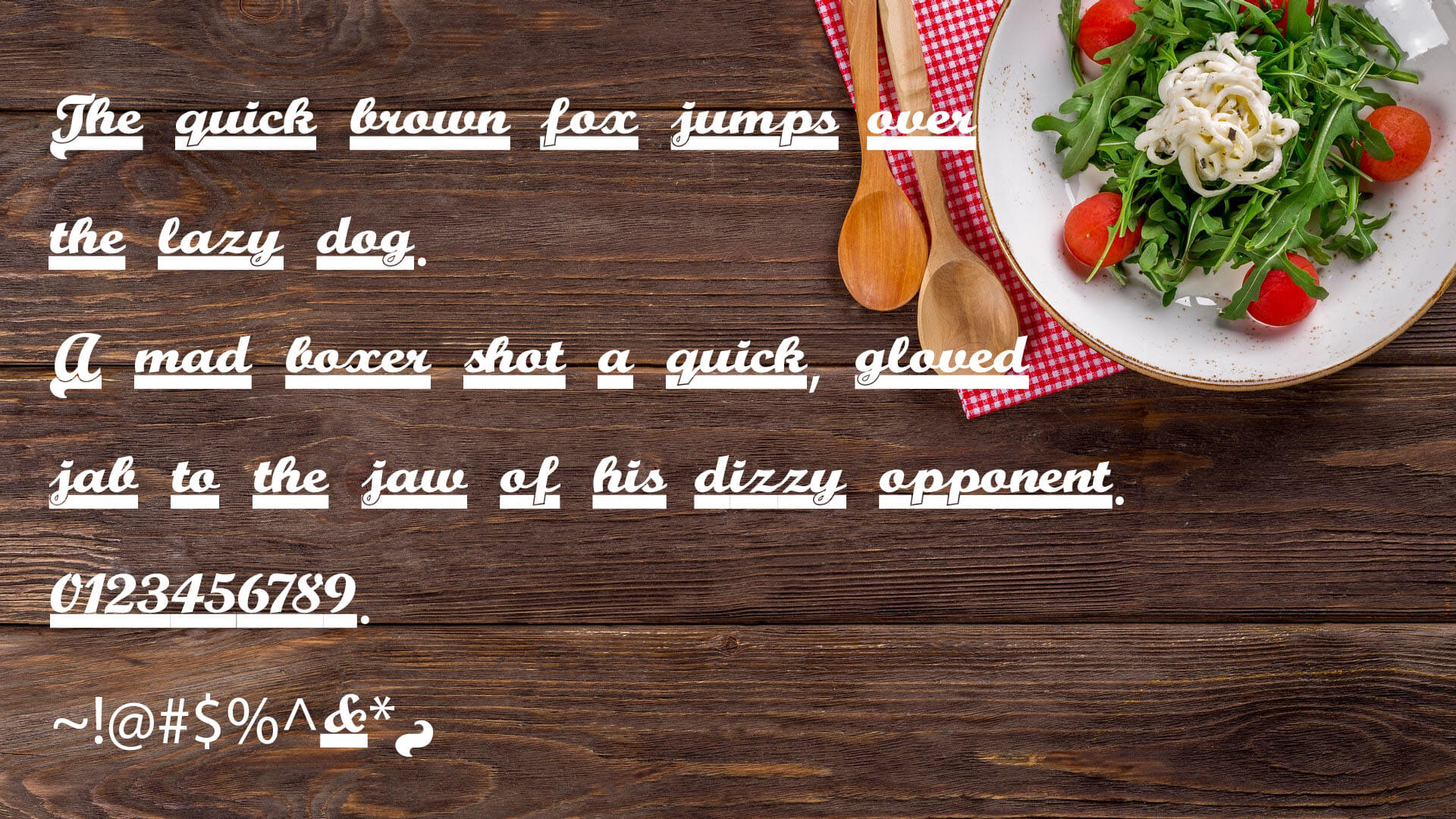
Let’s start to introduce an exceptional typeface that has been known as the Team Spirit Font. It is the script typeface. This Font style was designed and published by Nick’s Fonts. This spirit font is the underline typeface and it’s used in a lot of different designs.
Team Spirit Font Family
Team Spirit Font
You can use this font with quicksand font in creating web pages. This font is best for any document which needs a wonderful appearance. It is a clean texture font. This is the script typeface and they have both file formats OTF, and TTF.